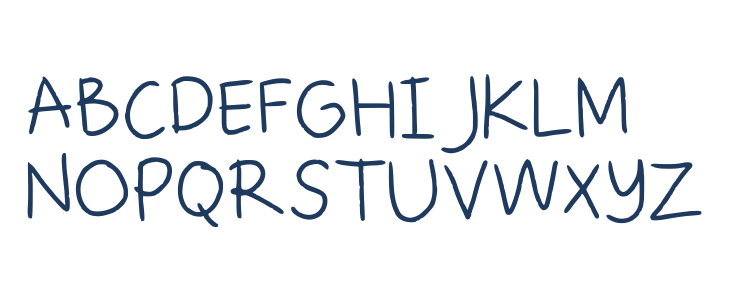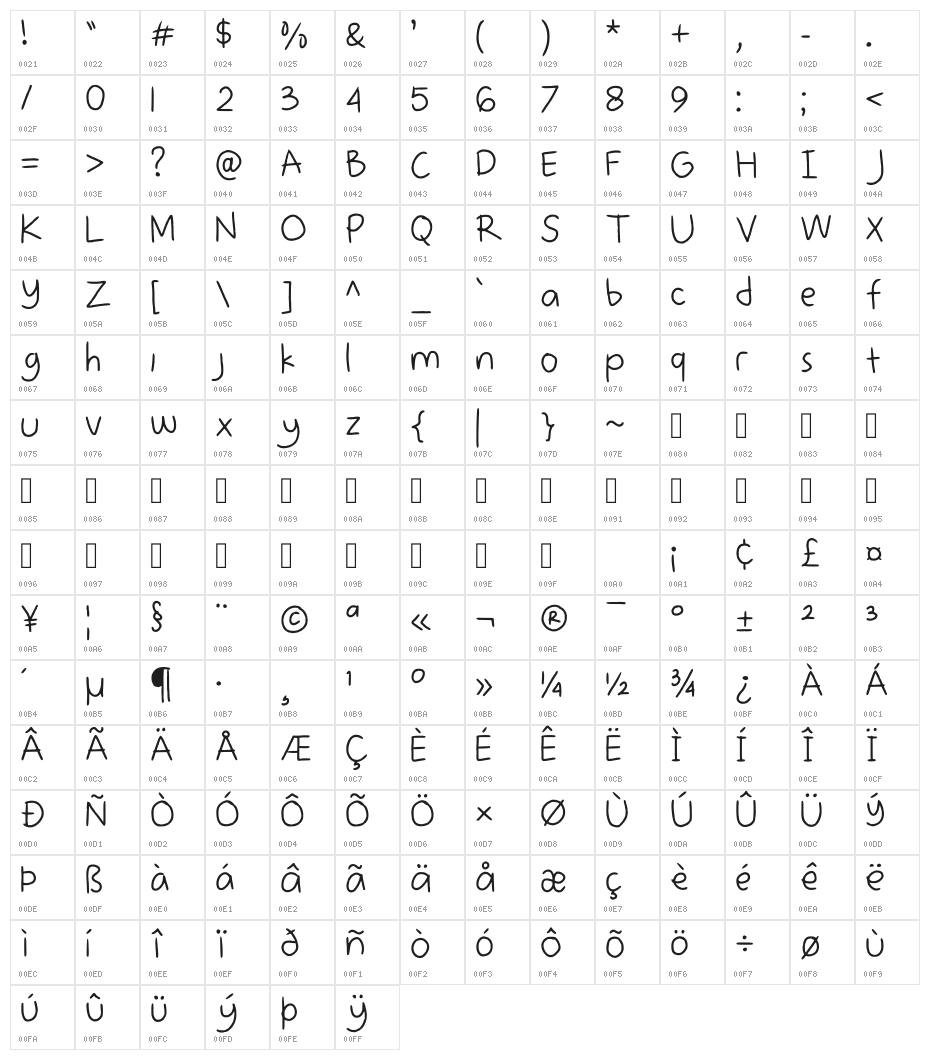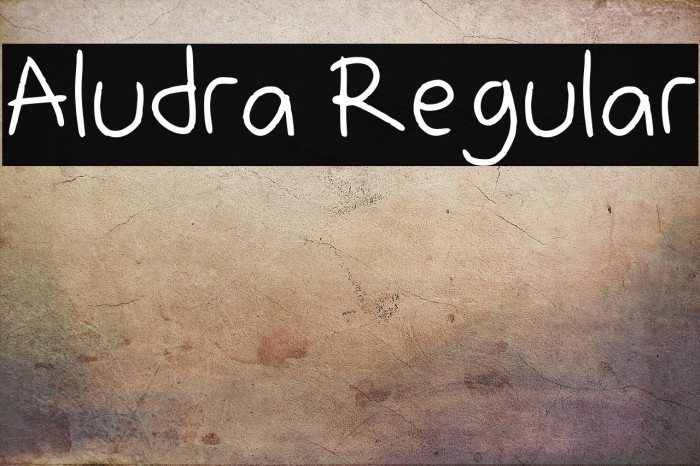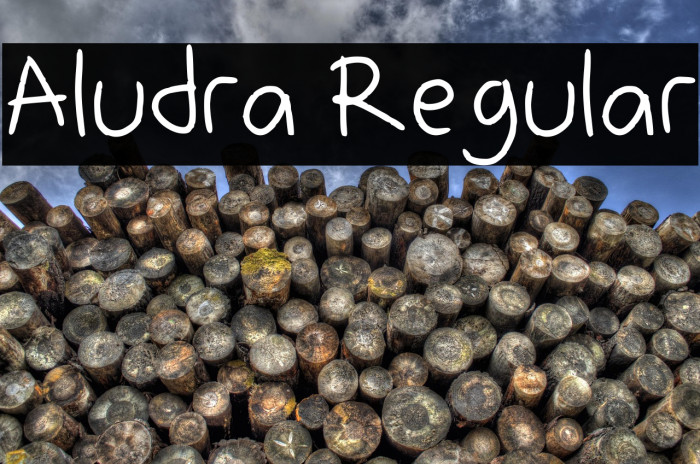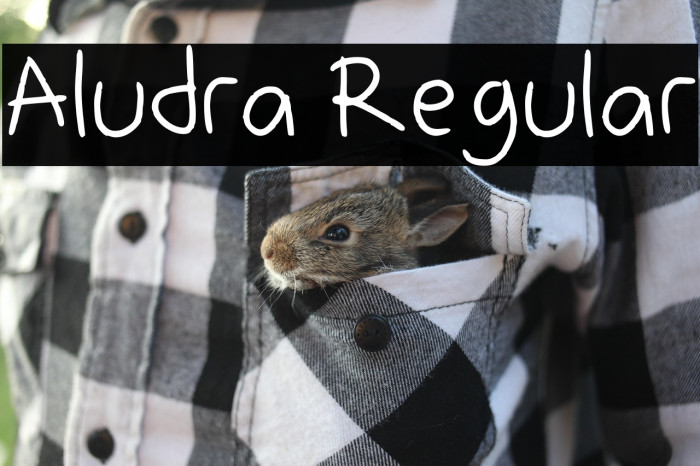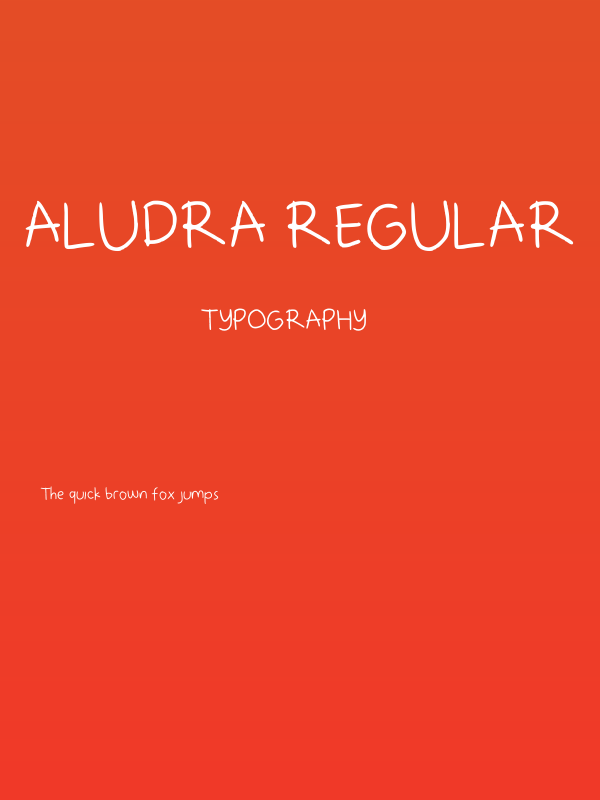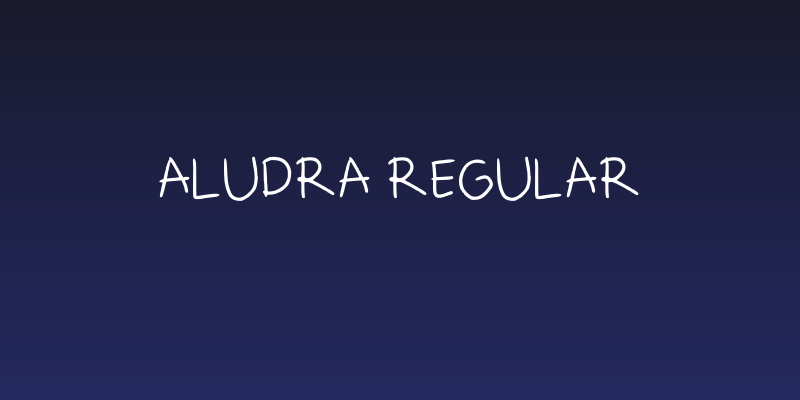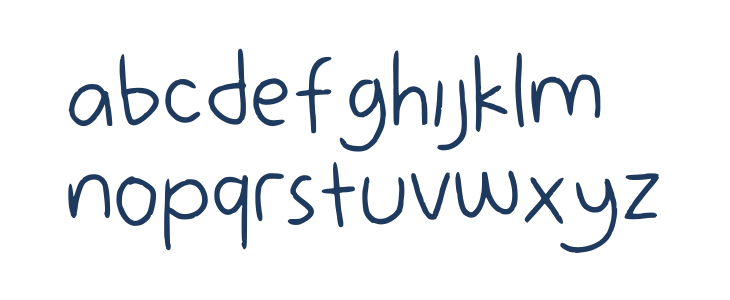
Aludra Regular Font
Aludra Regular Description
A casual, handwritten sans-serif font with rounded terminals and a playful, informal appearance. The strokes are consistent in thickness, and the characters are slightly irregular, mimicking natural handwriting.
| Overall Style | Casual, Playful, Informal |
| Use Case | Headlines, Short text, Logos, Invitations |
| Proposed Projects | ChildrenΓ’β¬β’s books, greeting cards, informal posters, educational materials, friendly branding. |